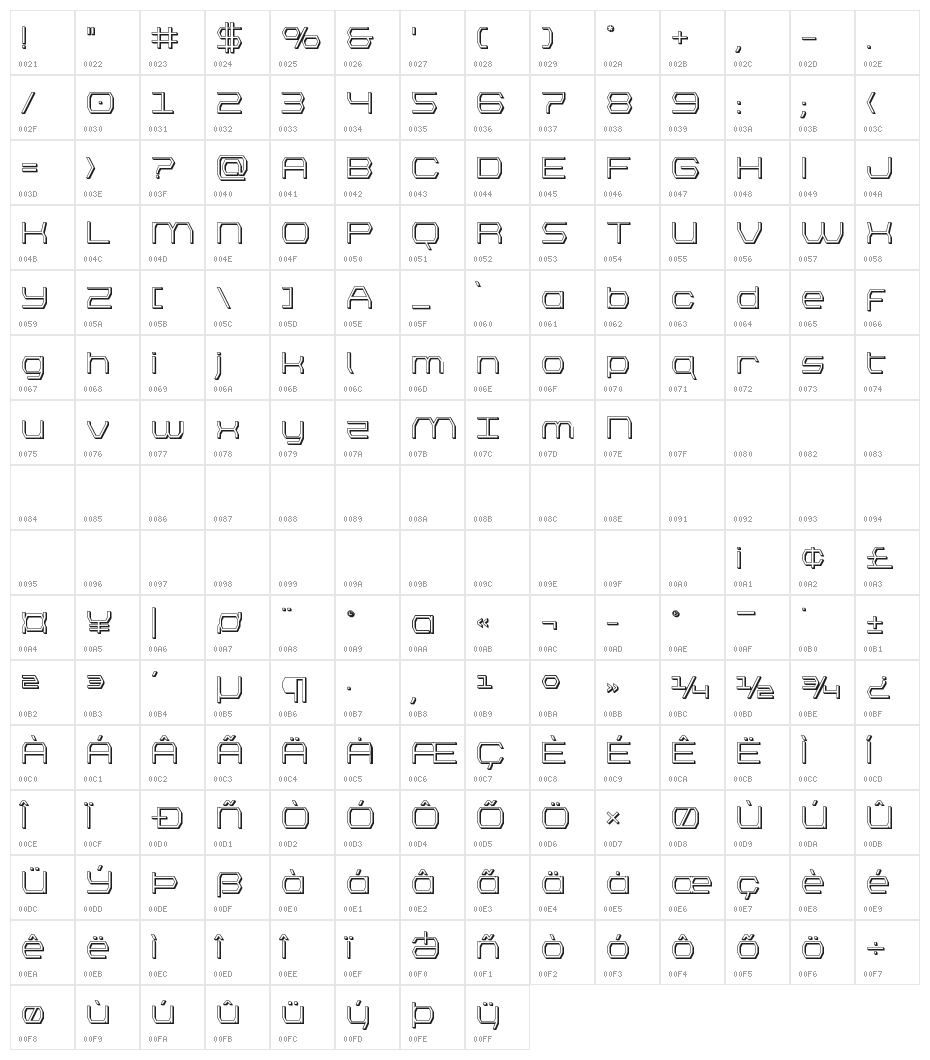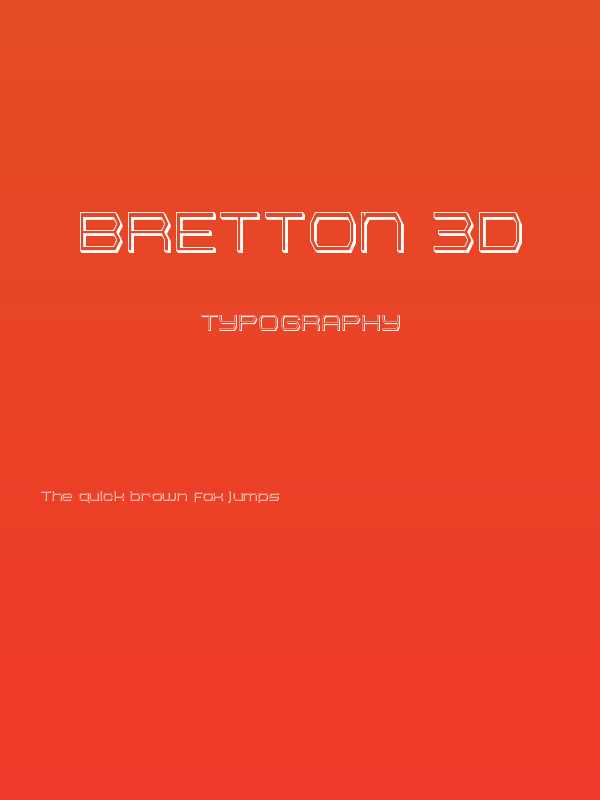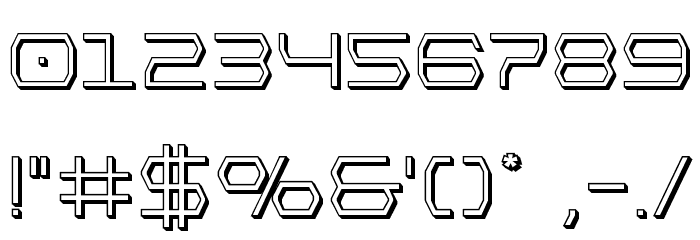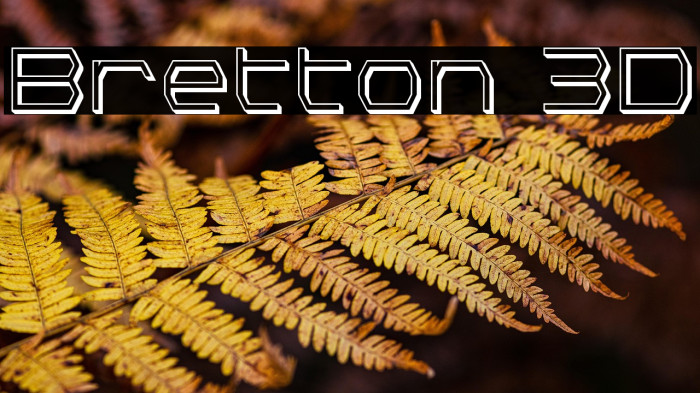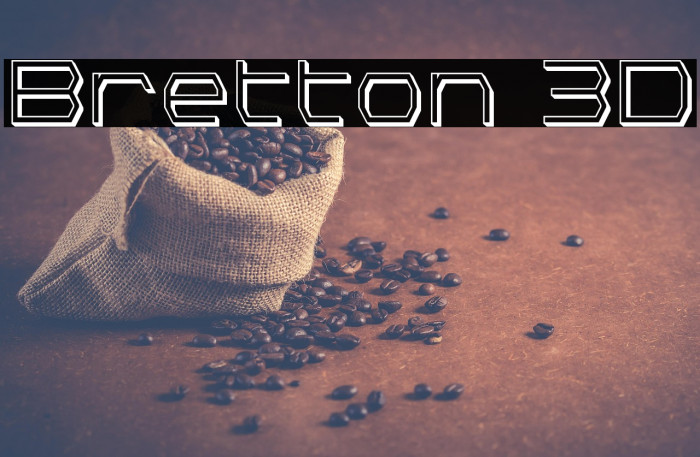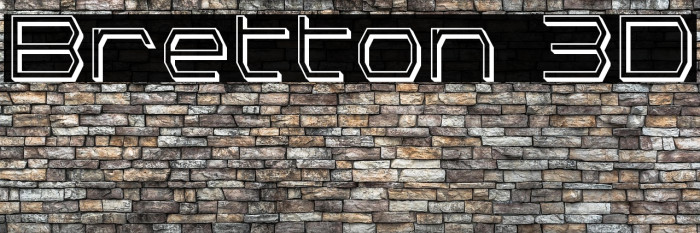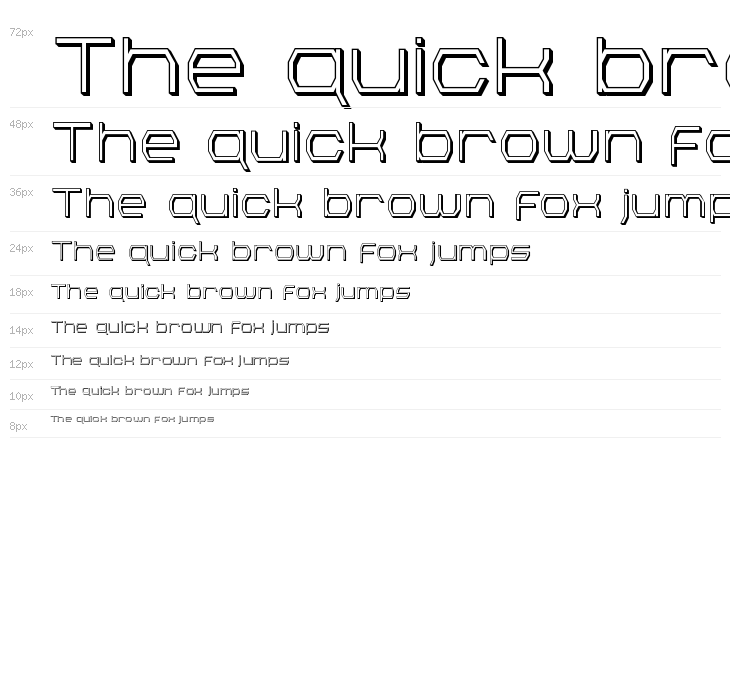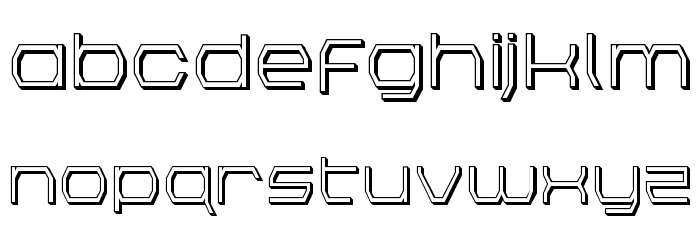
Bretton 3D Font
Bretton 3D Description
This font features a unique 3D effect with a hollow, outlined design that gives it a futuristic and digital appearance. The characters are constructed with geometric precision, creating a sense of depth and dimensionality. The uppercase and lowercase letters maintain a consistent style, with angular edges and a uniform stroke width. Numbers and special characters follow the same design principles, ensuring a cohesive look across all glyphs. This font is particularly eye-catching due to its bold, outlined structure, making it ideal for projects that require a modern and tech-inspired aesthetic.